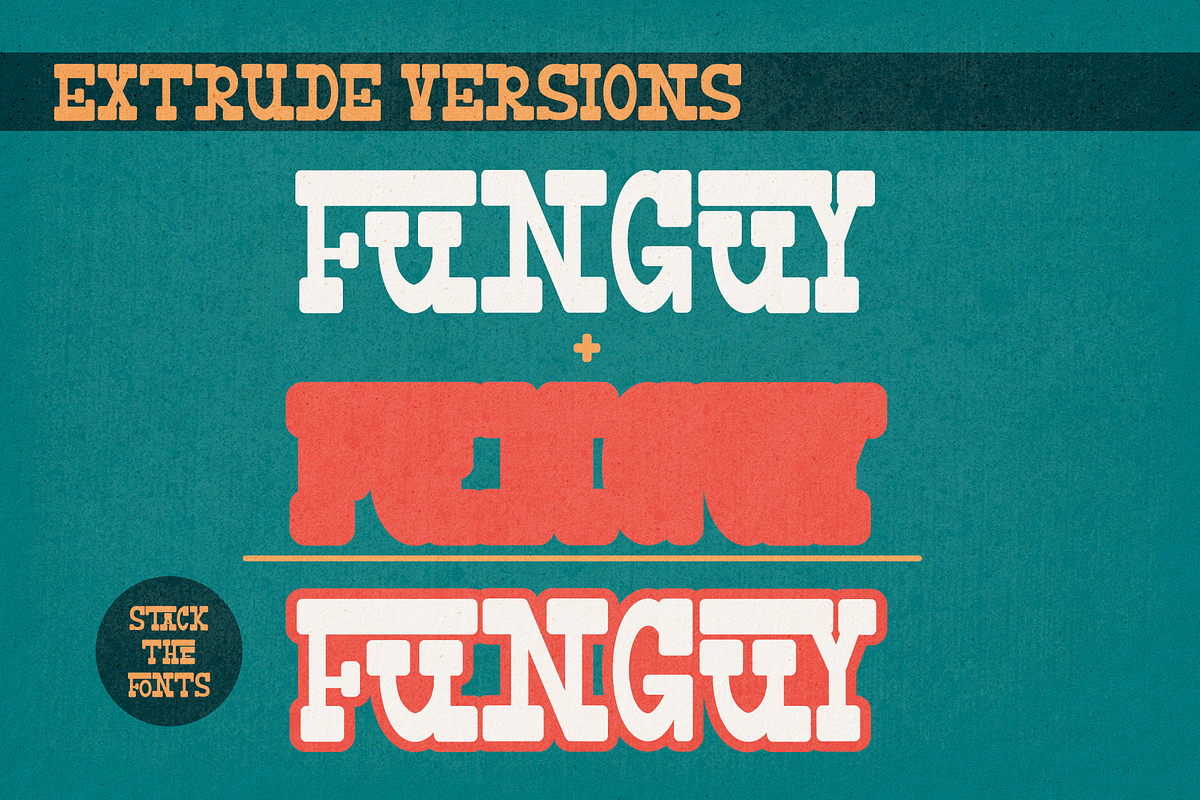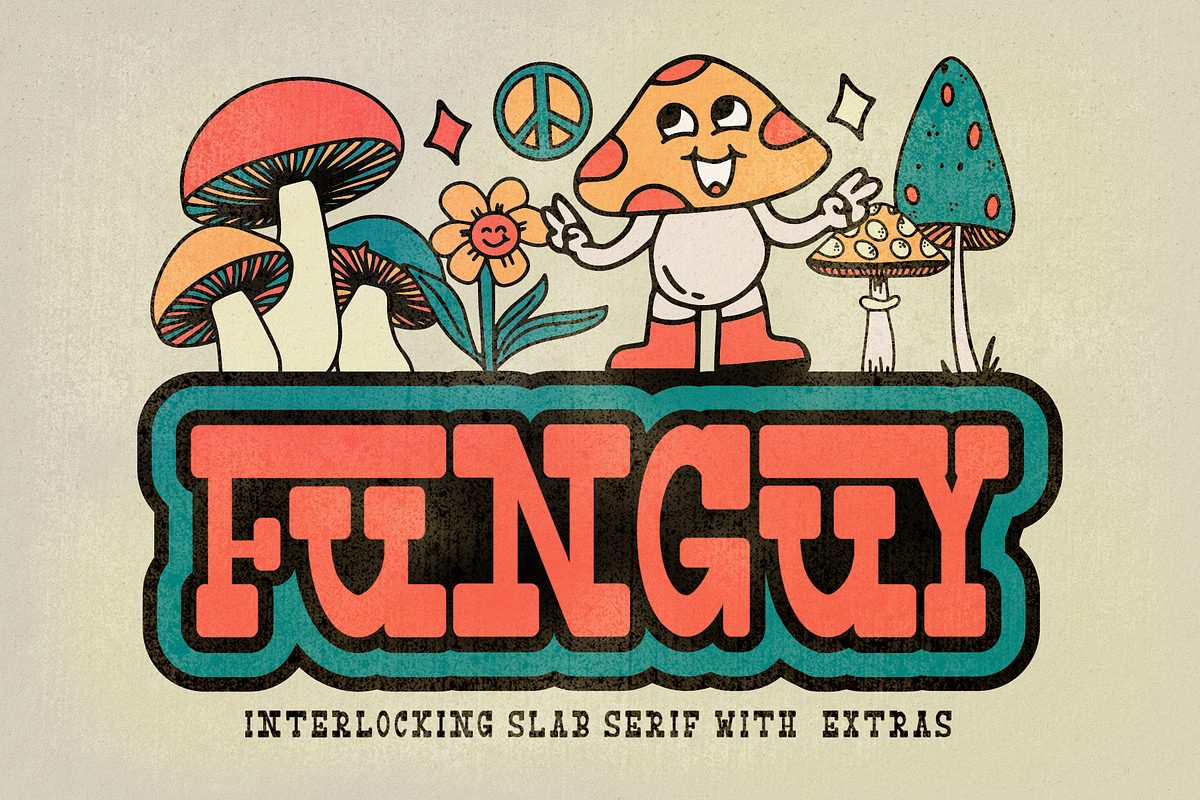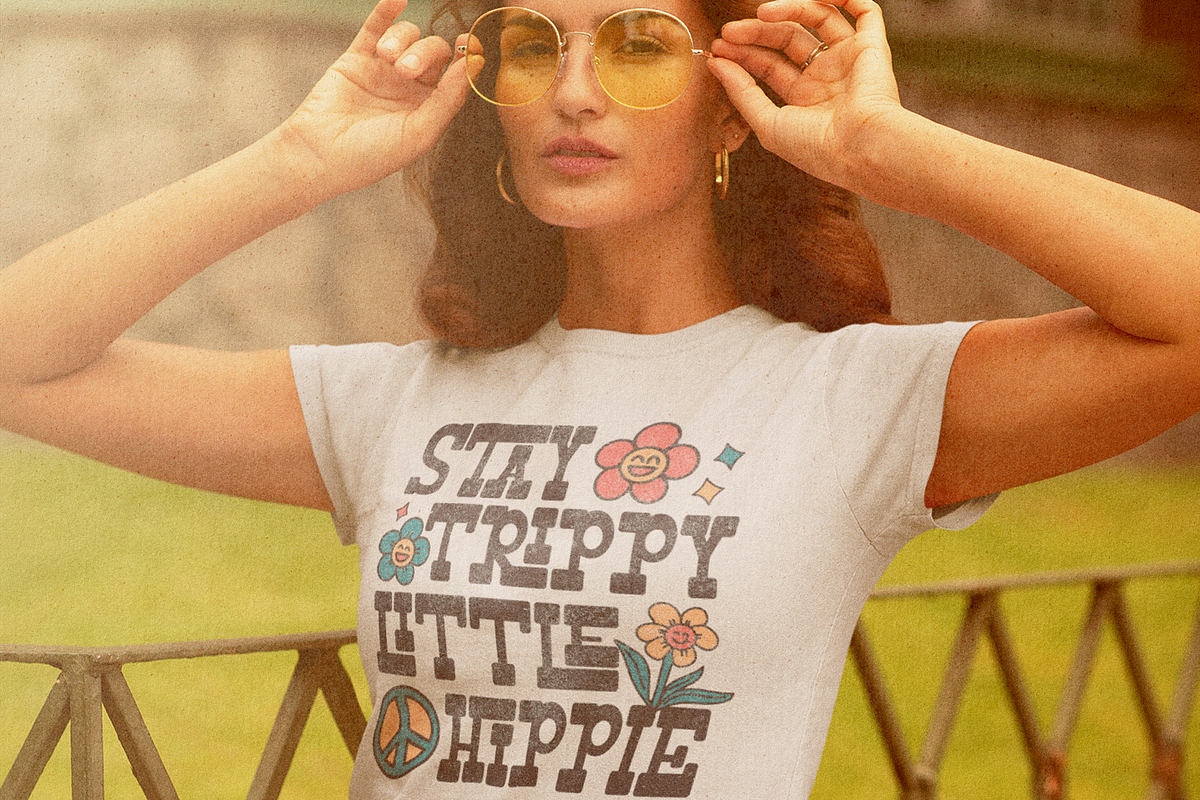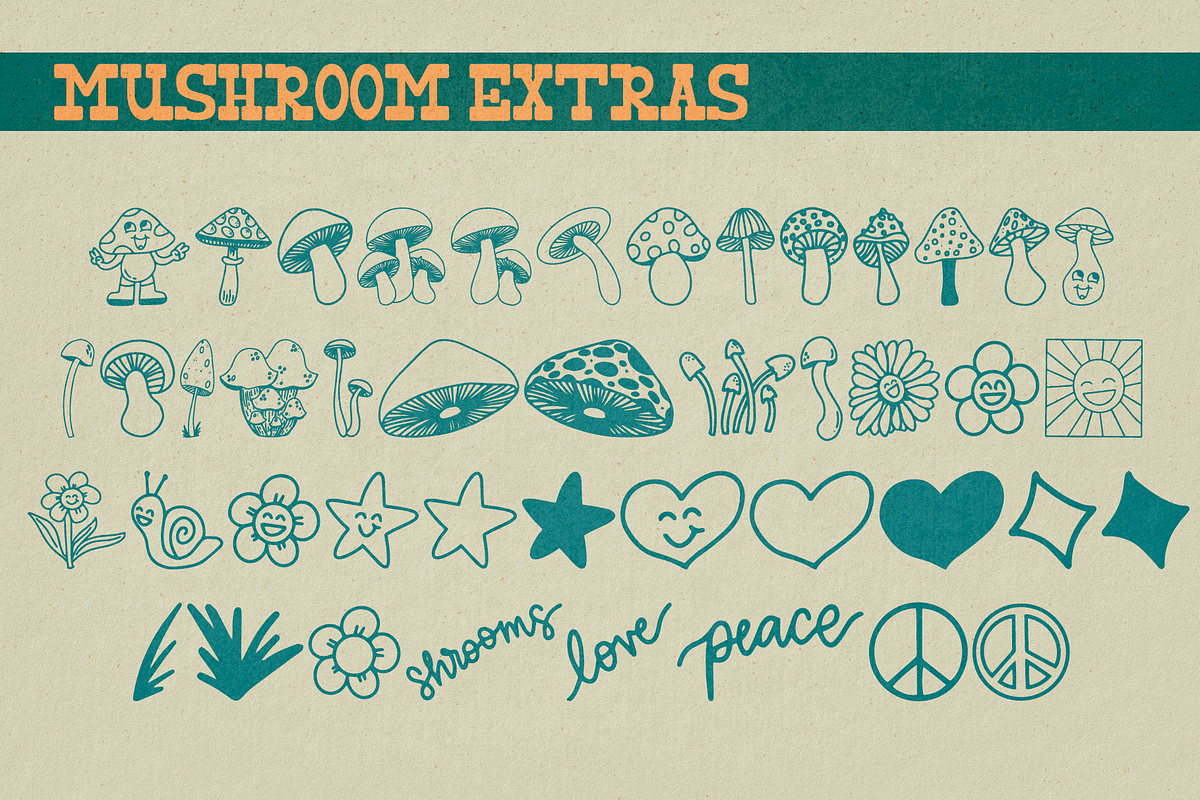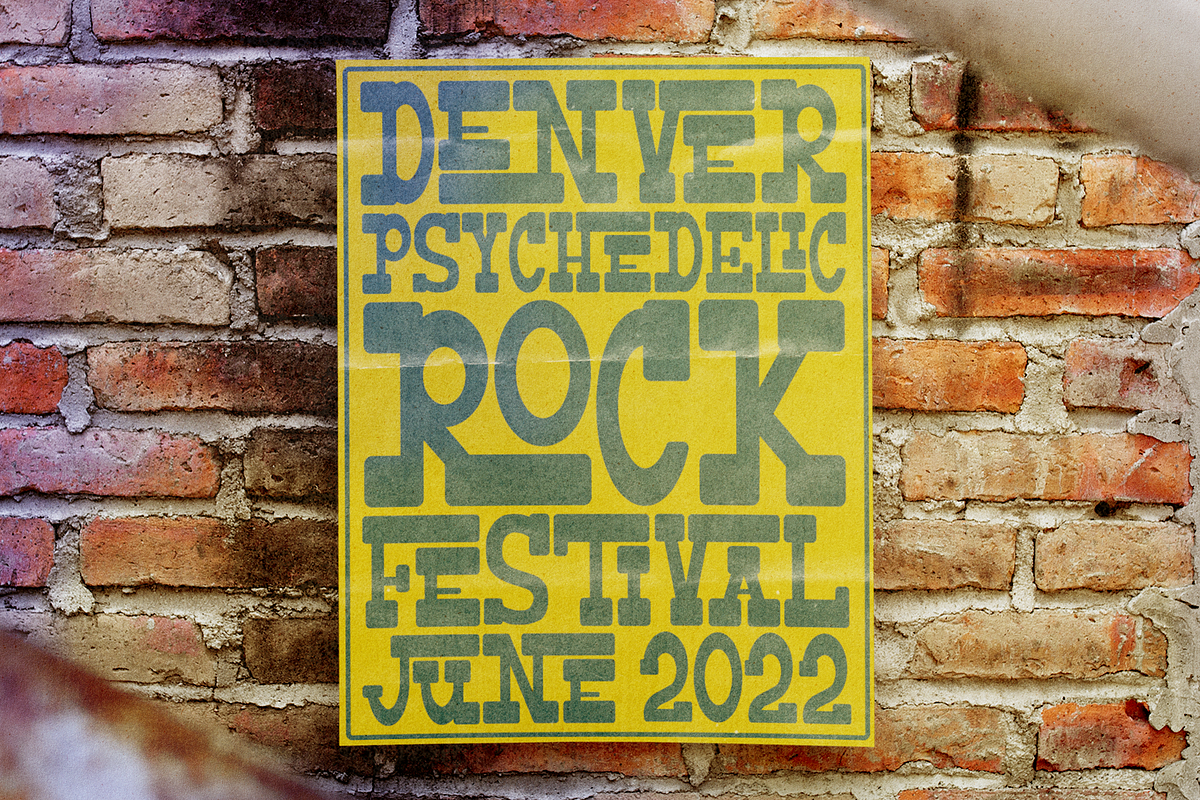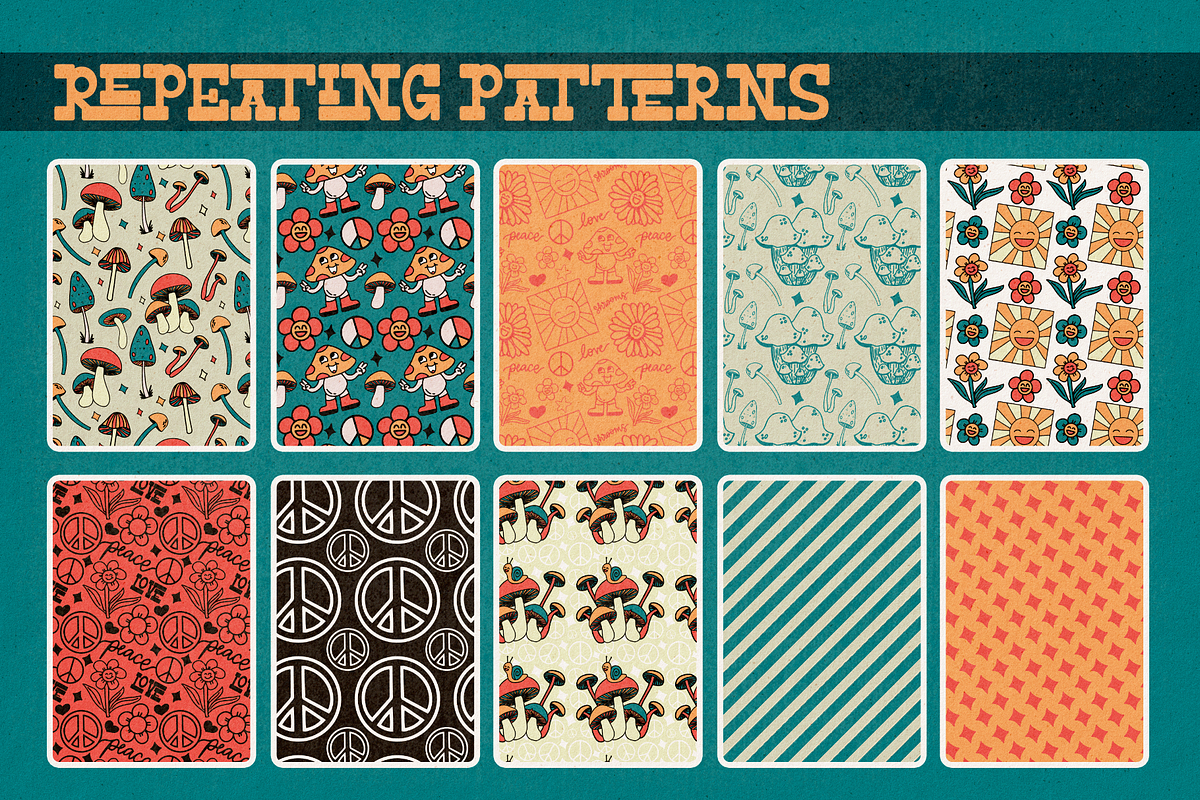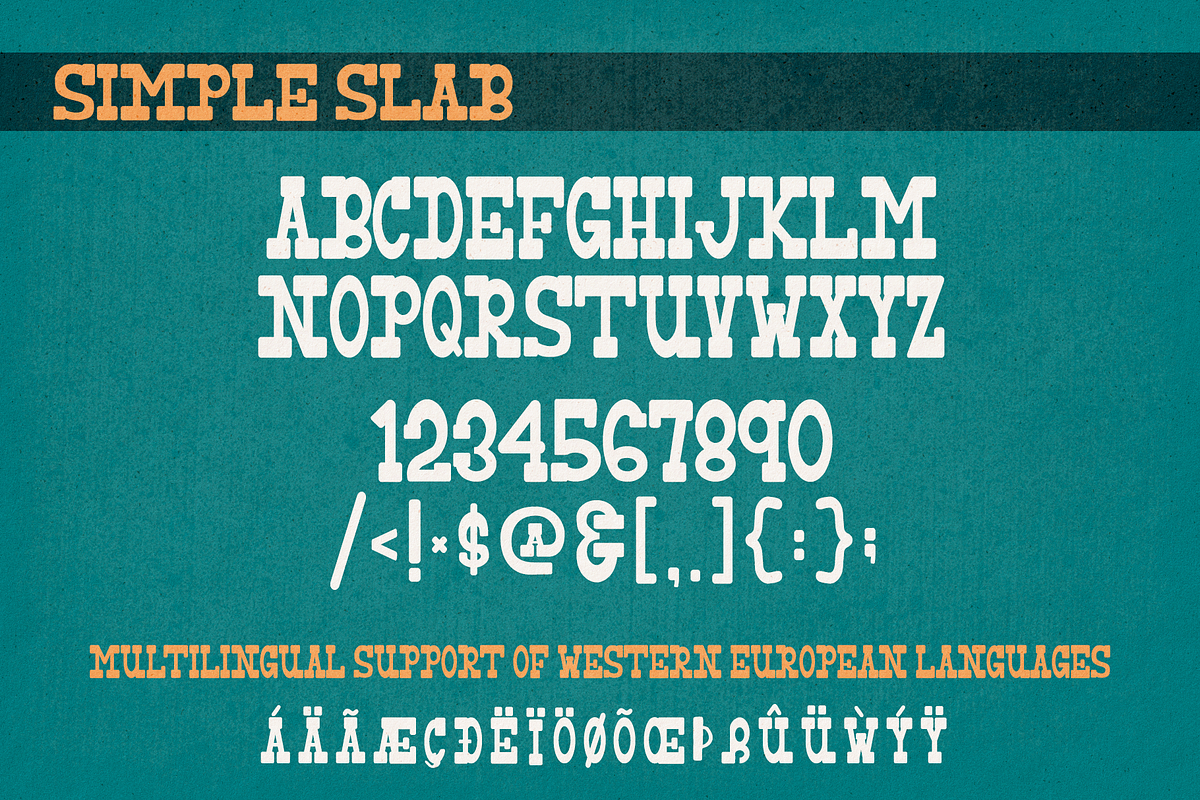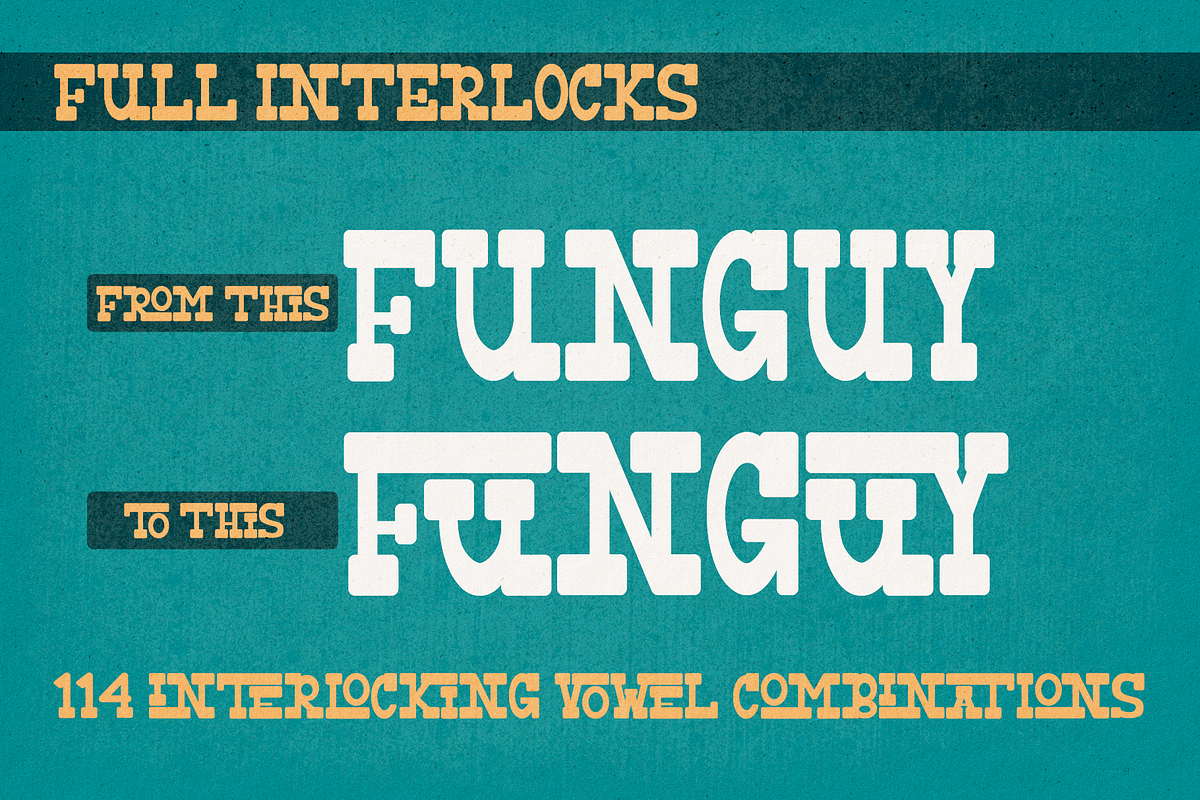
Funguy - Interlocked Slab Serif Font
Funguy: An Interlocking Slab Serif Font with extras.
One of the grooviest features in this All Caps font is that is have over 165 interlocking letter combinations (ligatures). When using this font in software that supports the glyphs feature, it will automatically change select letter combinations to interlocked. A simple version of the font is also included if you are looking for a great Slab Serif Display font that is great for packaging and posters that have a vintage vibe.